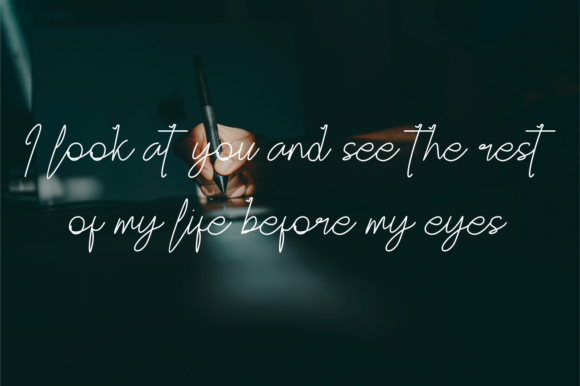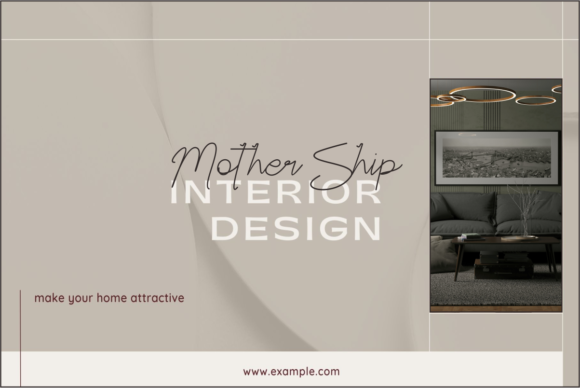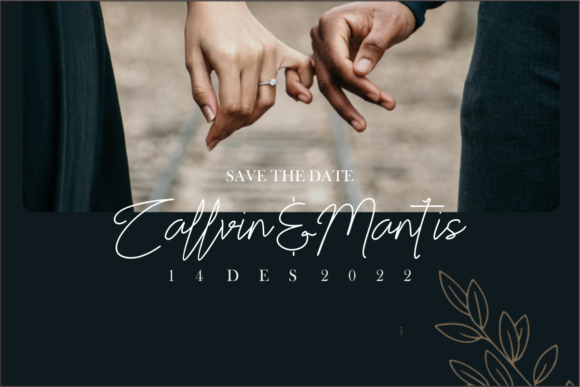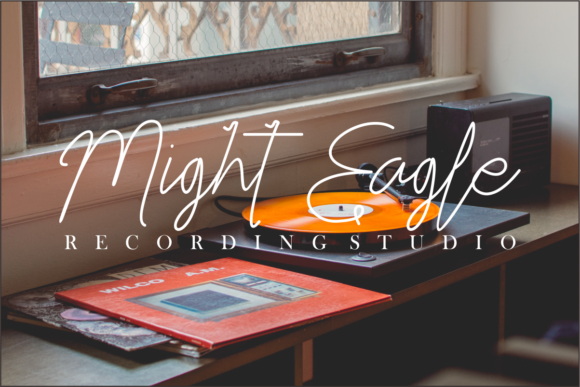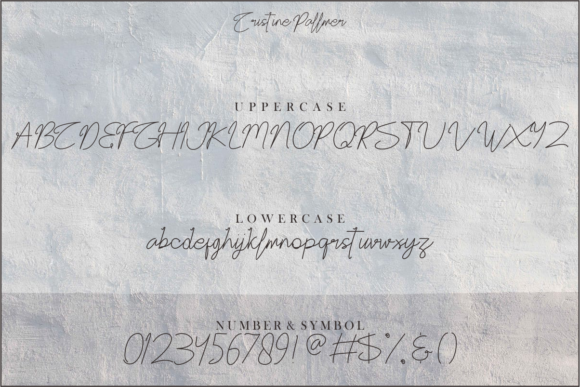
Discover the Timeless Elegance of Christine Pallmer Font
There’s nothing quite like the thrill of a blank page waiting to be filled with creative ideas. It’s a moment when anything seems possible, and the possibilities are endless. As a designer, you know that finding the right font can be the key to unlocking your vision and bringing it to life.
Enter the beautiful Christine Pallmer Font, a flowing handwritten font that exudes elegance and sophistication. With its incredibly distinct and timeless style, this font is perfect for adding a touch of refinement to your favorite projects. Whether you’re designing a wedding invitation, a menu, or a personal letter, the Christine Pallmer Font is sure to make a lasting impression.
For designers, this font is a valuable addition to any collection, offering a unique and versatile option for a wide range of creative projects. With its beautiful, flowing lines and elegant touch, the Christine Pallmer Font is sure to become a go-to choice for anyone looking to add a touch of sophistication to their designs.
Christine Pallmer Font Key Features
- Unique Characteristics: The Christine Pallmer font features a unique, elegant script style with a touch of classic sophistication, making it perfect for use in high-end branding, invitations, and special events.
Christine Pallmer Font Review
As a designer, I’ve had the opportunity to work with various fonts, and I’m excited to share my thoughts on the Christine Pallmer Font.
- Unique Character: The Christine Pallmer Font has a distinct personality, making it perfect for projects that require a touch of elegance and sophistication.
- High-Quality Design: The font’s design is meticulously crafted, ensuring seamless rendering across different devices and platforms.
- Neutral Color Palette: The font’s neutral color palette makes it easy to pair with a wide range of colors and designs, allowing for maximum flexibility.
- Limited Language Support: The font may not be optimized for languages that require complex character sets, which could lead to rendering issues.
- Small Character Set: Compared to other fonts, the Christine Pallmer Font has a relatively small character set, which may limit its use in certain applications.
Overall, I find the Christine Pallmer Font to be a solid addition to any designer’s toolkit. While it may have some limitations, its unique character and high-quality design make it an excellent choice for projects that require a touch of sophistication.
Tip: Use the Christine Pallmer Font for headings and titles to add a touch of elegance to your designs.
Tip: Use the Christine Pallmer Font for typography-heavy designs, such as book covers or magazine layouts.
Tip: Use the Christine Pallmer Font for presentations or documents that require a touch of sophistication.
The Christine Pallmer Font is ideal for:
- Book covers and book design
- Magazine layouts and typography-heavy designs
- Presentations and documents that require a touch of sophistication